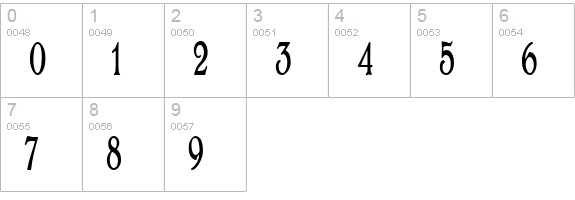
BoltonElongated Font Details
BoltonElongated font is a modern and stylish typeface that exudes elegance and sophistication. Its elongated letterforms give a unique and eye-catching appearance, making it ideal for a wide range of design projects. Whether you're working on branding, invitations, posters, or any other creative endeavor, BoltonElongated font will surely make a lasting impression. The sleek and slender design of BoltonElongated font is perfect for creating a sleek and contemporary look. Its clean lines and balanced proportions make it highly versatile and suitable for both headlines and body text. The font's distinct elongated characters add a touch of drama and flair to any typography project. What's even better is that BoltonElongated font is available for free download at FontsMarket.com. So, you can easily add this stylish typeface to your font collection without any cost. Don't miss out on the opportunity to enhance your designs with the striking beauty of BoltonElongated font. Download it today and let your creativity shine!